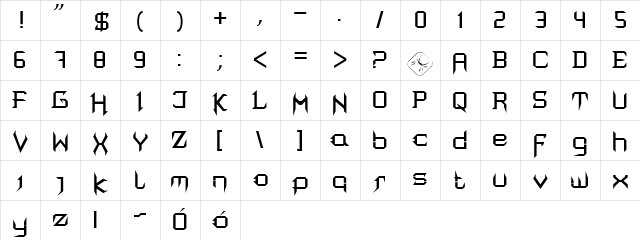
mortis Regular
Foundry: atrax
Designer: atrax
Design Context for mortis
mortis is a composed and adaptable typeface that performs quietly and consistently across a wide range of design contexts.